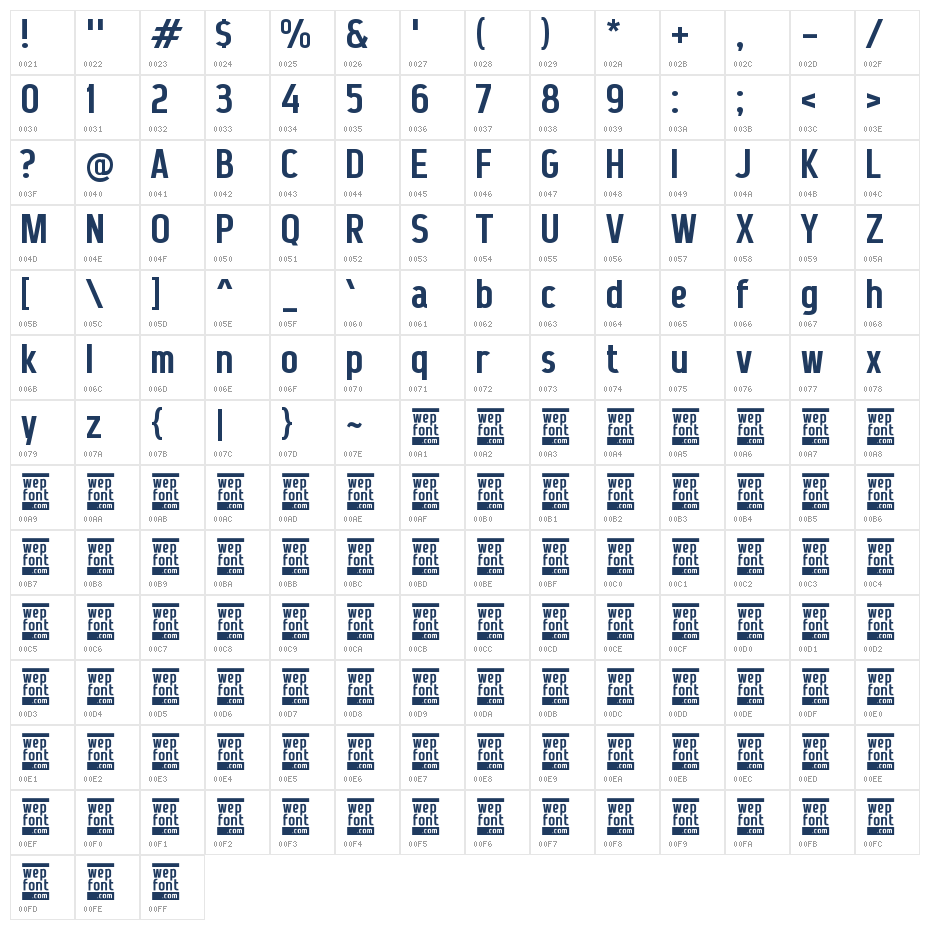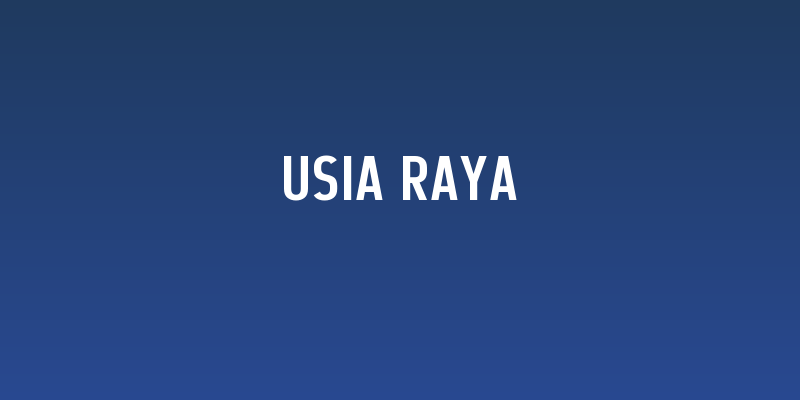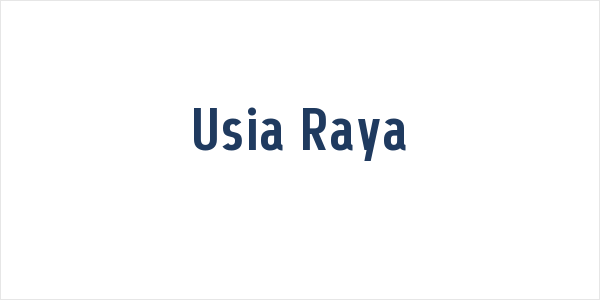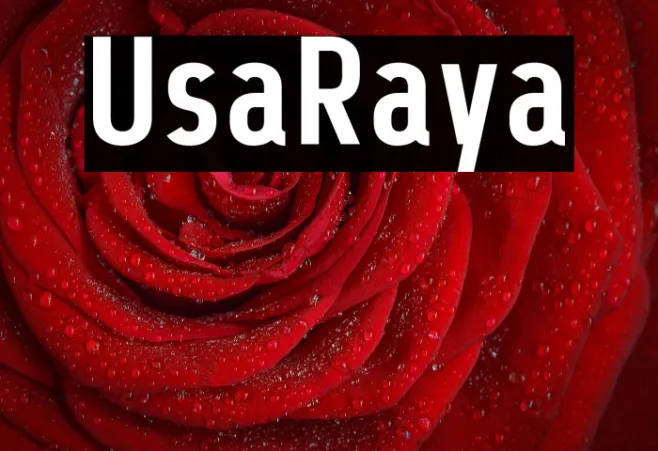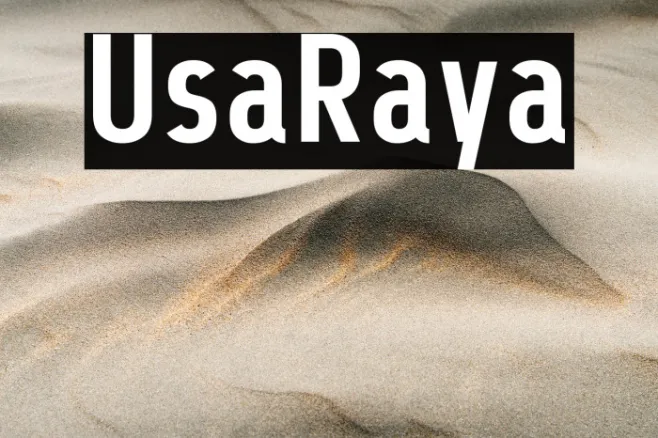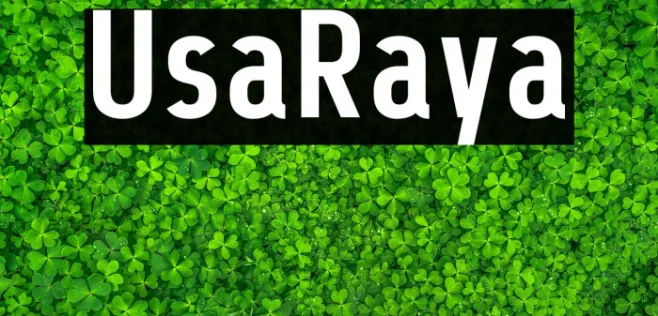
Usia Raya Font
Usia Raya Description
Bold, sans-serif font with a modern and clean appearance, characterized by uniform stroke widths and rounded edges.
| Overall Style | Modern, Clean |